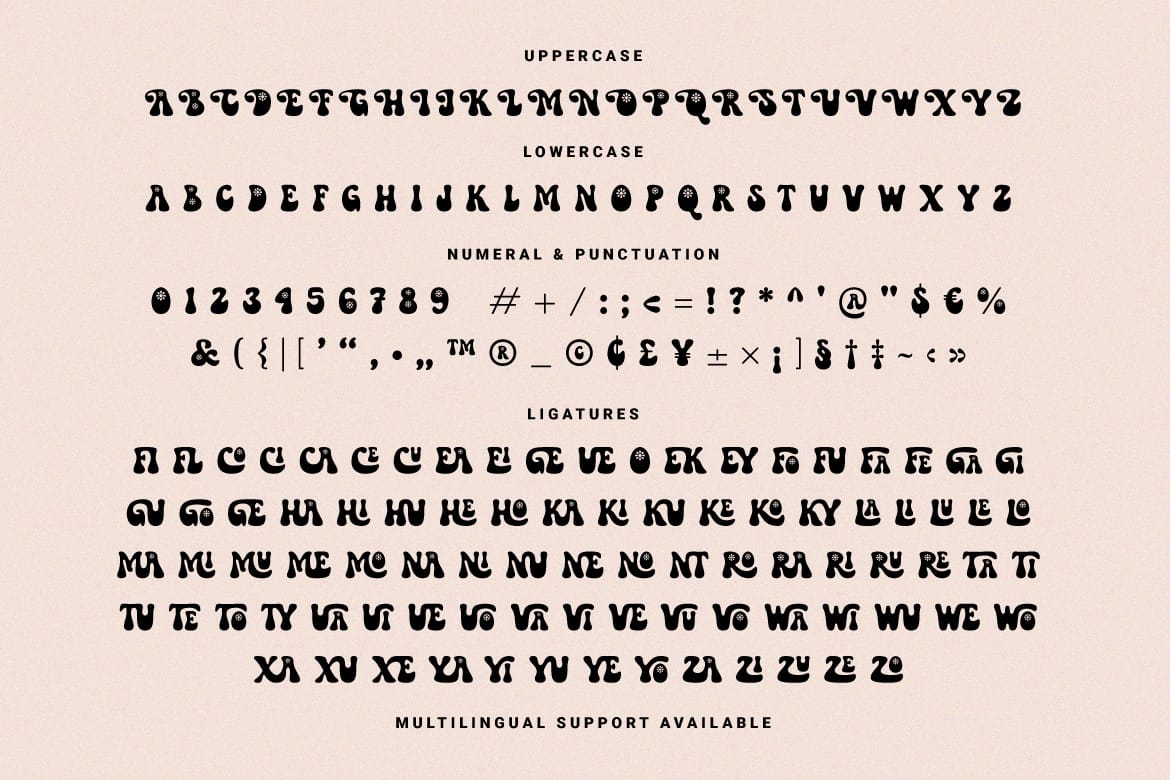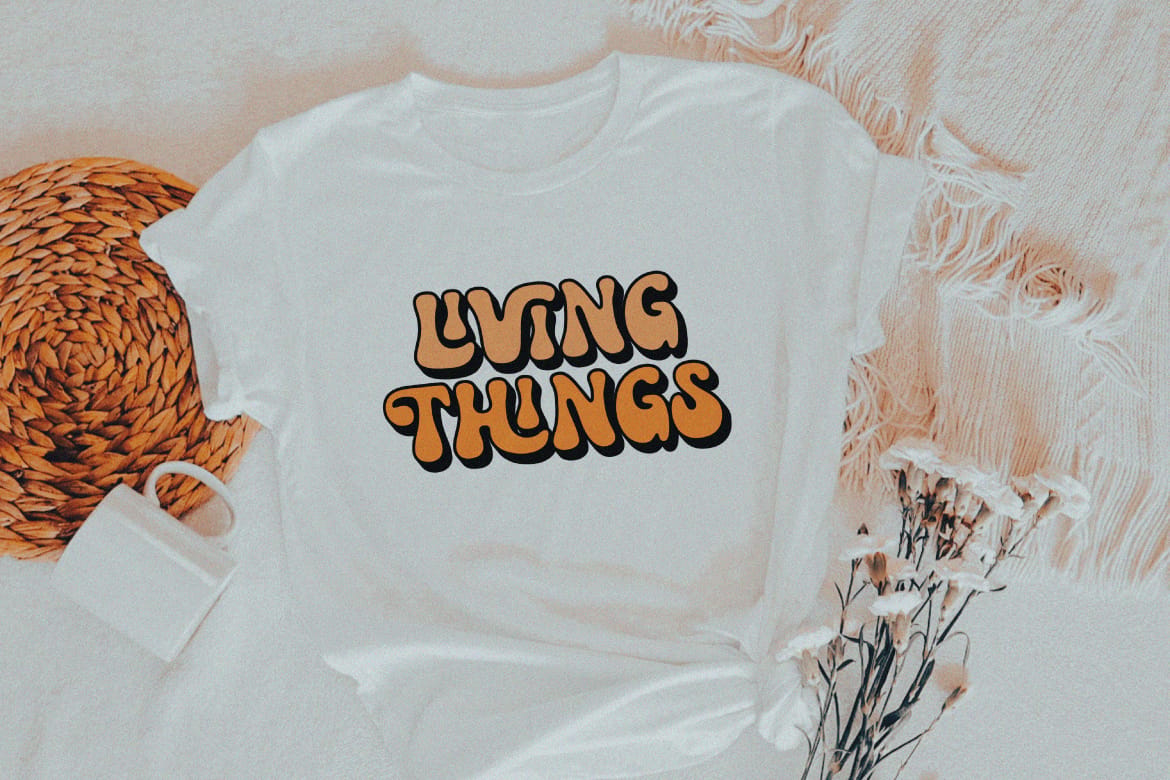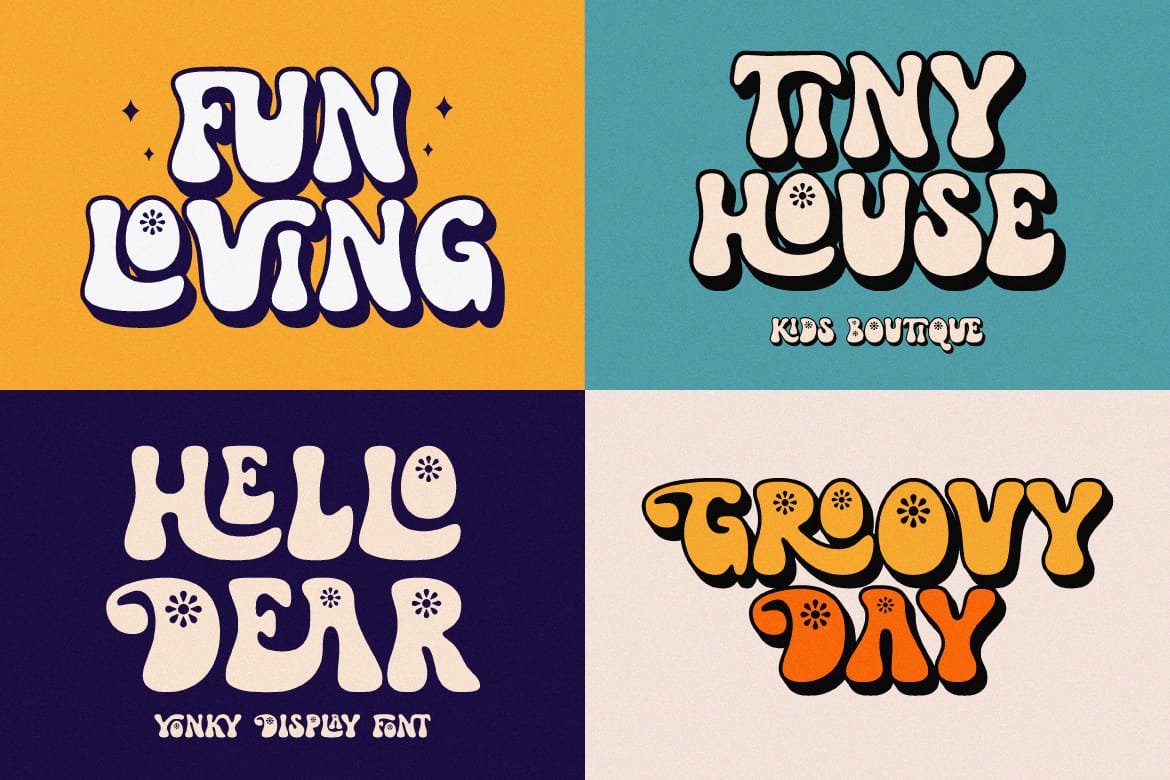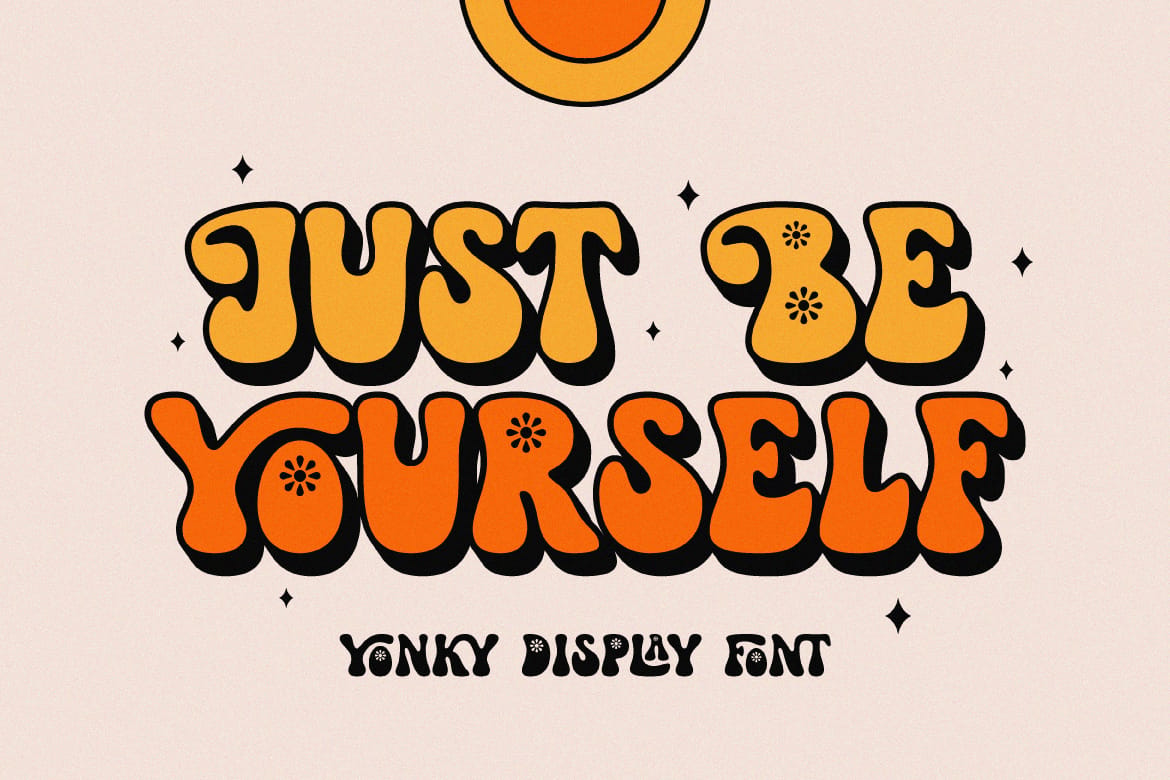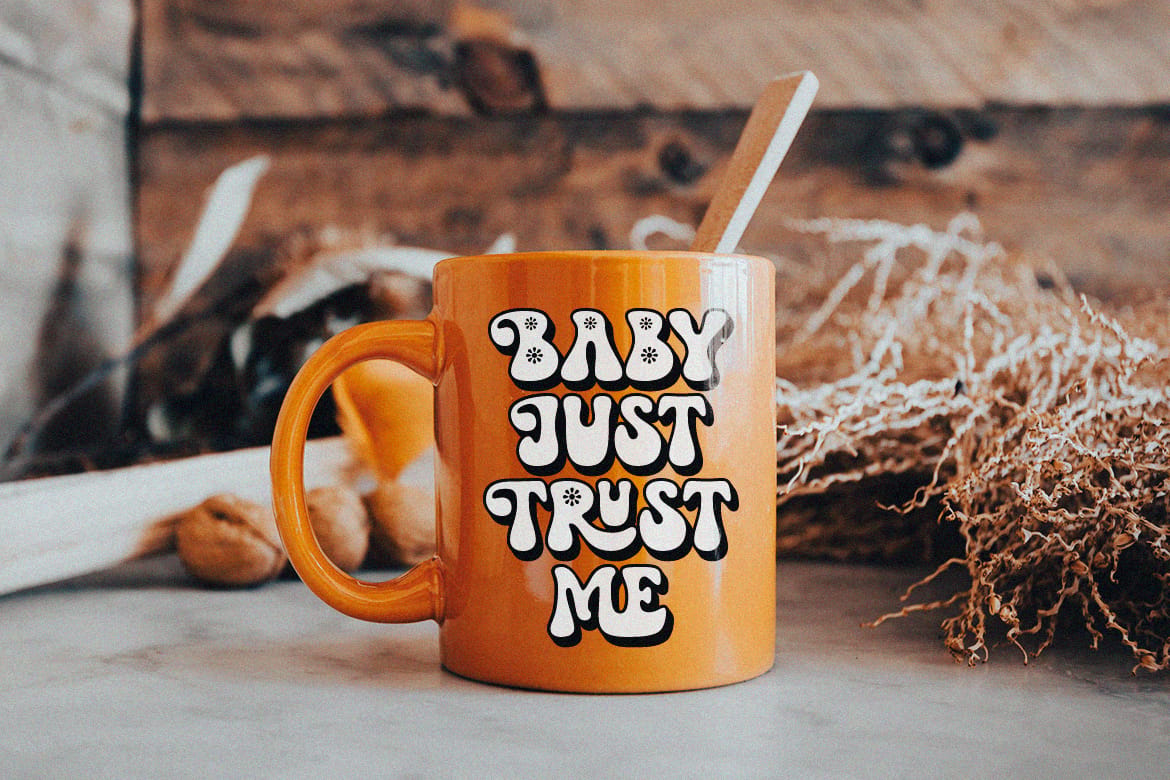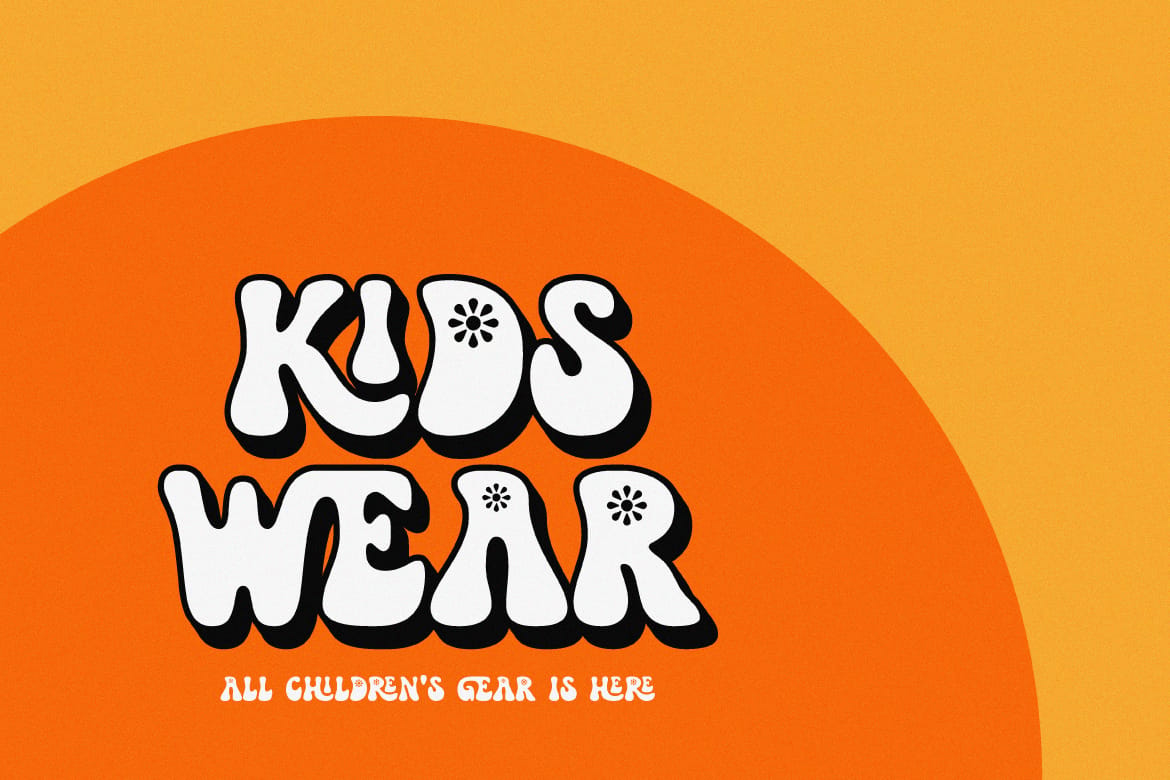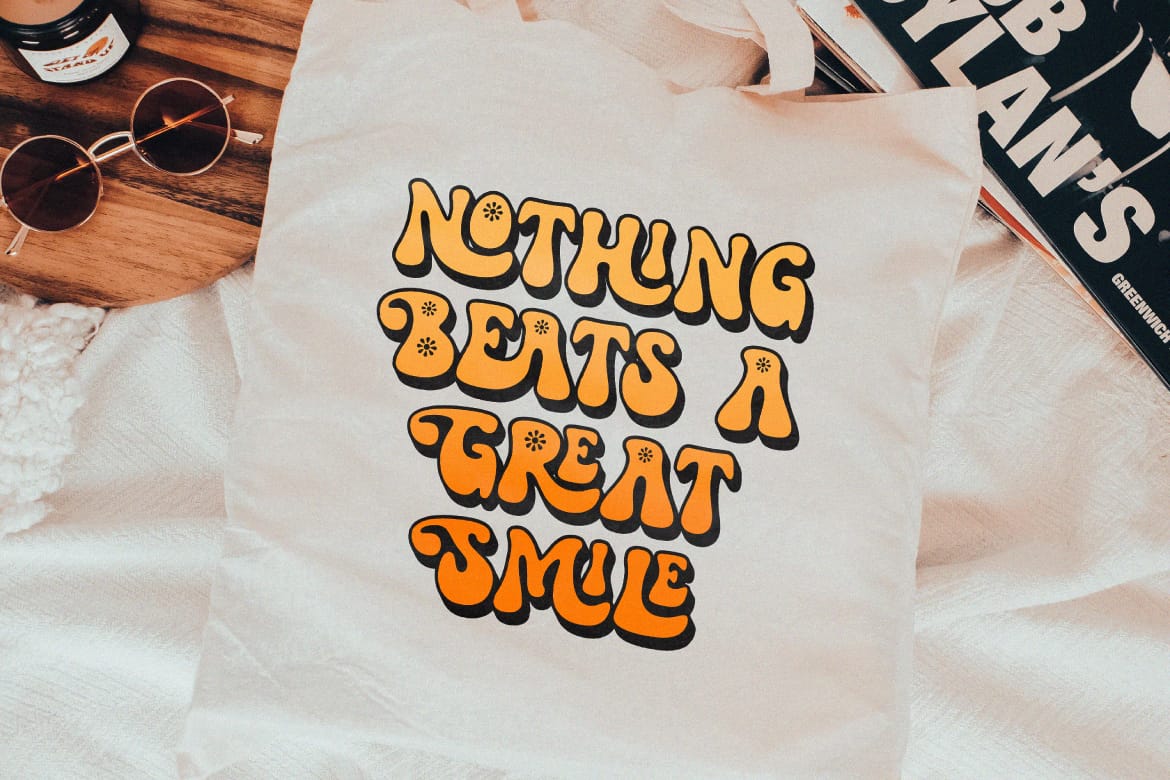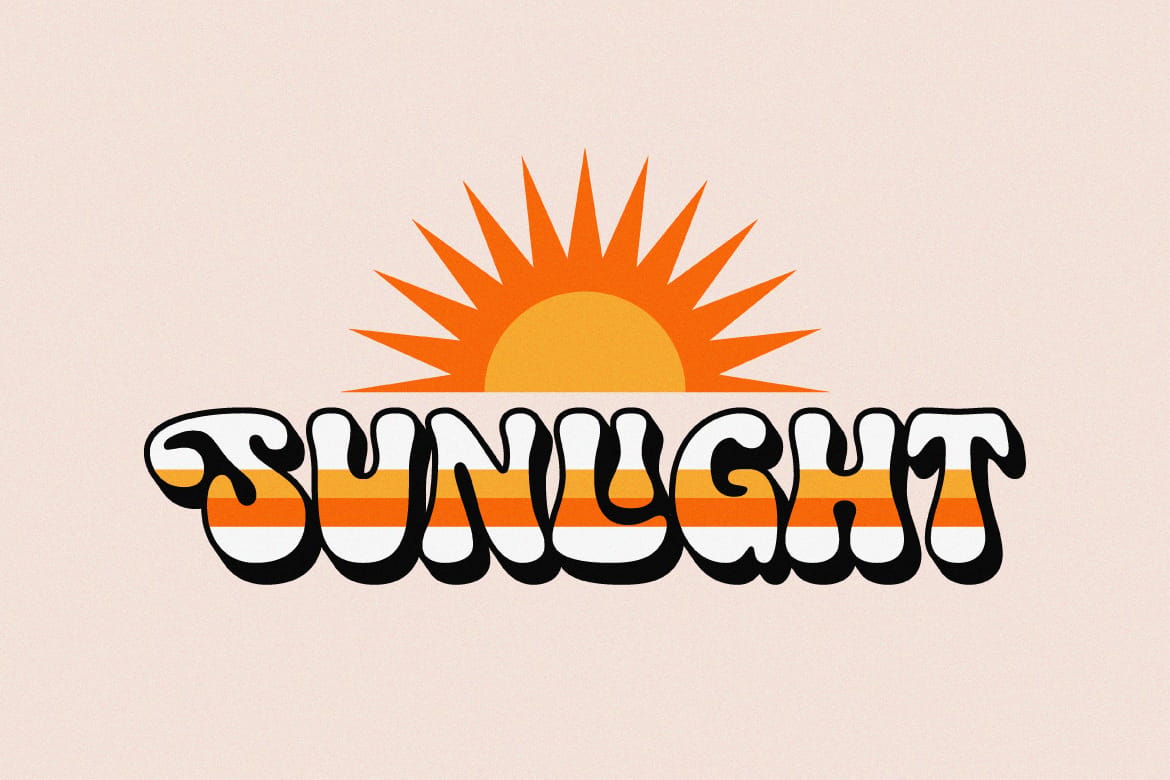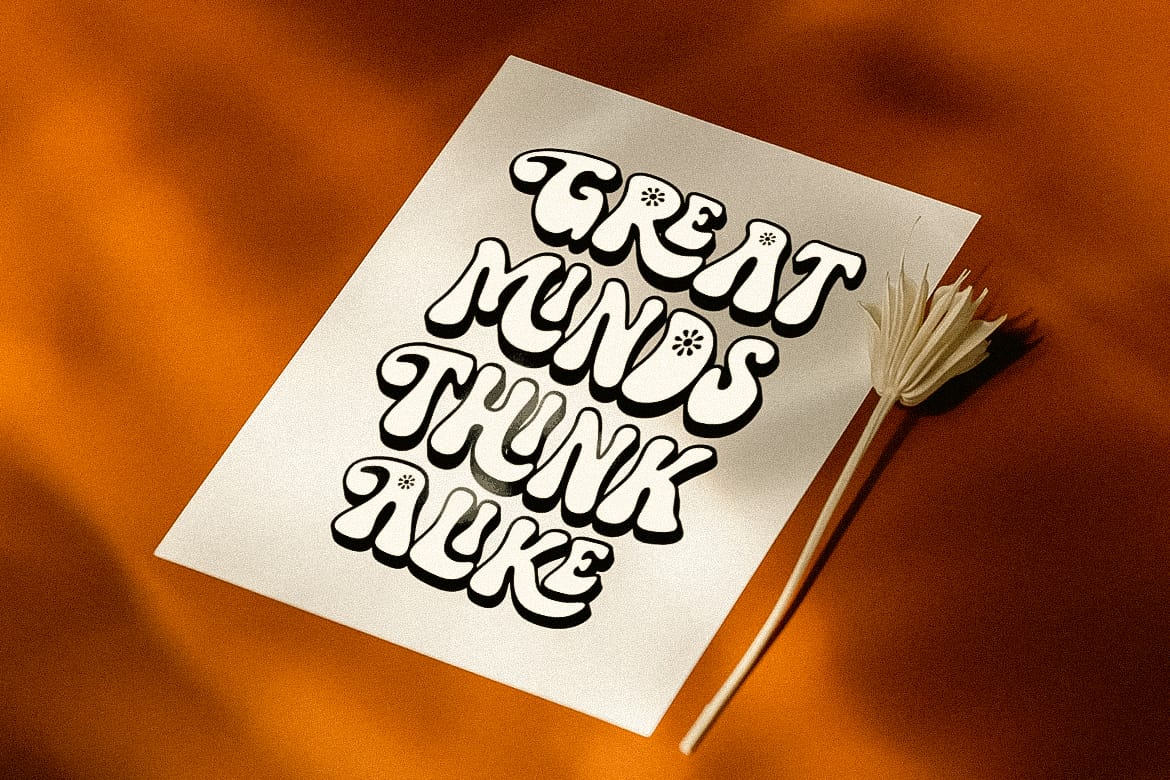
Yonky Display is a really fun hand-drawn font. Consists of two styles namely regular & extrude. Perfect for poster designs, quotes, merchandise, logos and more.
Features: Uppercase, Lowercase, Numeral, Punctuation, Multilingual & Ligatures.
Multilingual supported: Afrikaans, Albanian, Basque, Catalan, Danish, Dutch, English, Estonian, Filipino, Finnish, French, German, Indonesian, Irish, Italian, Norwegian, Portuguese, Spanish, Swedish, and many more.